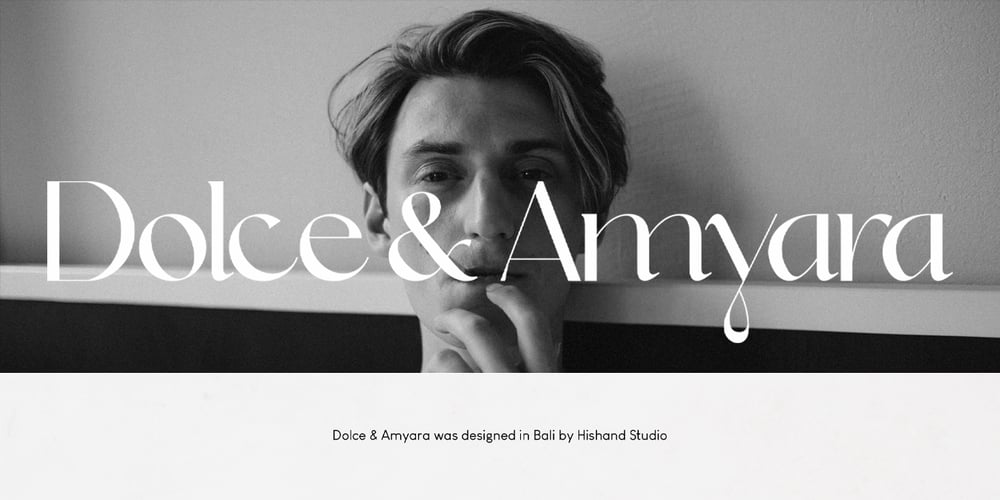
Dolce & Amyara
Dolce & Amyara font
Dolce & Amyara Font Family was designed by Putu Dody Permana and published by Hishand Studio. Dolce & Amyara contains 3 styles and family package options. Introducing Dolce & Amyara classy modern serif font family that drew inspiration from stylish, modern, and classic at the same time. It looks lovely on logos, branding, invitations, marketing materials, wedding designs, social media posts, and every other design which needs a customized touch.Complete with- ligatures- alternates- regular- italic- icon- kerning- multilingual support